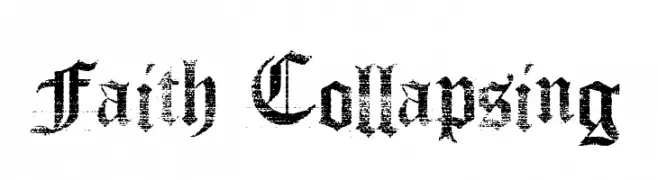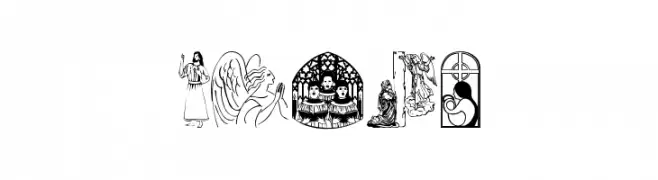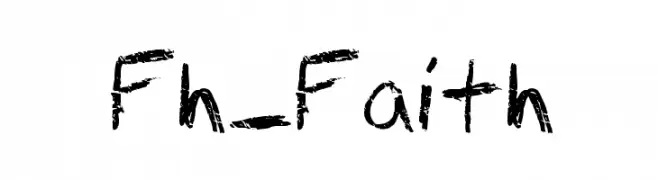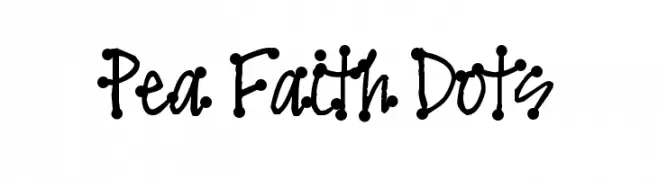
Another Font
A playful, casual handwritten font with bold, rounded characters.
Flubber Font
A playful, bubbly font with a fluid, organic design perfect for creative projects.
Sketchbook Font
A playful, hand-drawn font with irregular, sketch-like letterforms.
Wesley Font
A playful, hand-drawn font with irregular, wavy lines and a whimsical style.
2 Prong Tree Font
An edgy, hand-drawn font with a rustic, organic appearance.
3 Prong Tree Font
A bold, scratch-like font with a chaotic, hand-drawn appearance.
EDB Indians Font
A decorative font with feather-like elements and bold outlines, ideal for creative projects.
Zhang QA Font
A whimsical and playful font with decorative, face-like elements.
Touch Of Nature Font
A bold, nature-inspired font with a playful and organic design.
Faith Collapsing Font
A distressed blackletter font with a textured, gothic style.
Alan Den Font
A bold, dynamic font with sharp, angular edges and a hand-drawn appearance.
Anyway Font
A playful, hand-drawn font with quirky, irregular letterforms.
Keep the Faith Regular Font
A playful, casual handwritten font with smooth, rounded edges.
Christian Crosses Font
A decorative symbol font with diverse Christian cross designs.
Fh_Faith Font
A rugged, distressed font with a hand-drawn, edgy aesthetic.
Beta Dance Font
A dynamic and whimsical font with bold, exaggerated strokes and a playful, gothic influence.
Faith Font
A religious-themed dingbat font with Christian illustrations.
Pea Faith Dots Font
A playful, dotted handwritten font with a whimsical style.
Alpha Dance Font